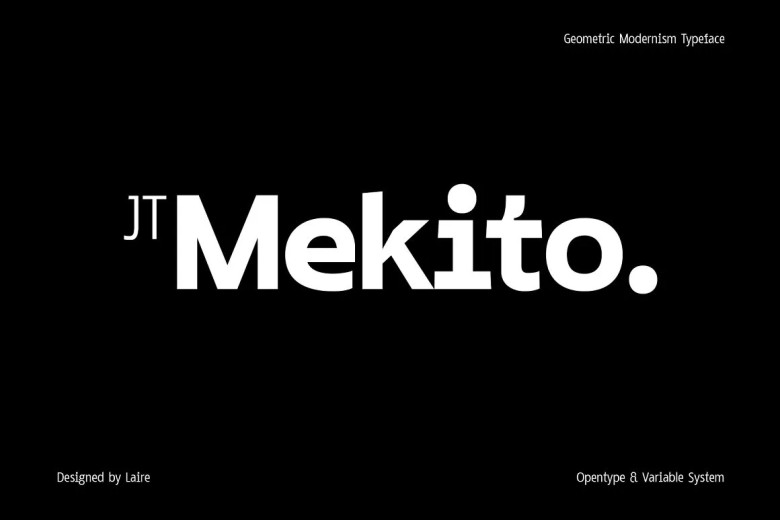
JT Mekito Font
JT Mekito is a modernist Geometric Sans Serif developed by Laire in 2023 and will be released early 2024. Inspired by Gothic and Geometry Sans serif styles, it adds an individualistic extra touch to letters like f and t as well as other letters for greater legibility at smaller sizes; also adding the appearance of mono letter i which adds distinctiveness at larger sizes as well. Offered in 63 weight styles ranging from thin to black.
JT Mekito Sans Serif Font